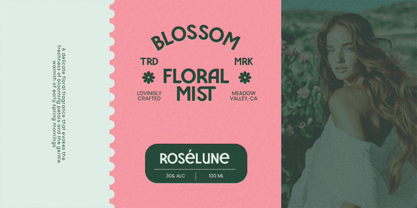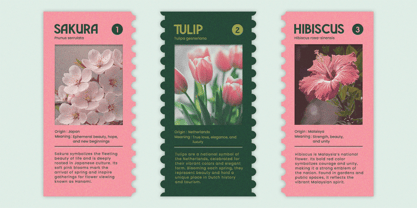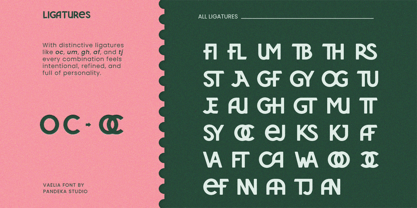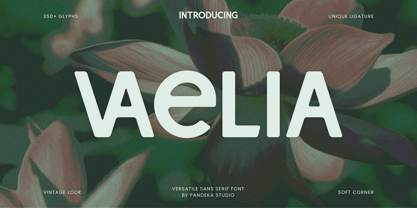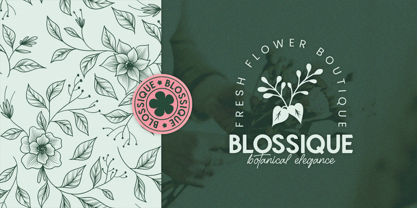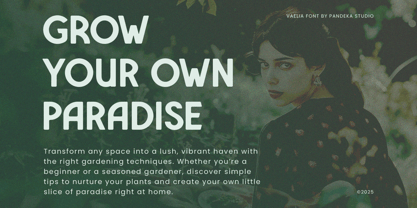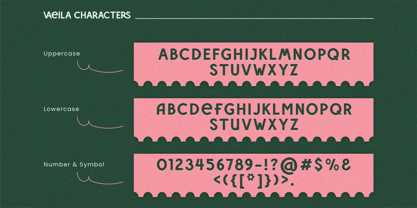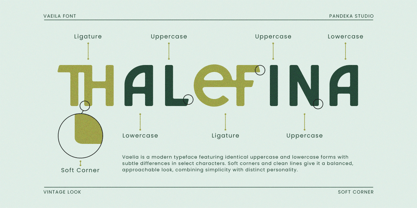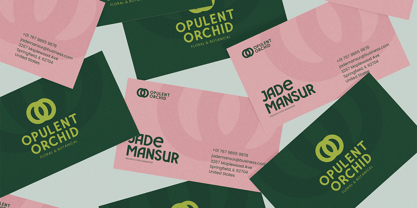
Vaelia
by Pandeka Studio
The Vaelia Font Family was designed by Sagara Nararya and published by Pandeka Studio. Vaelia contains 1 styles. More about this family
Vaelia is a bold, nature-inspired display font with a modern twist. Designed for creatives who want to infuse elegance, organic charm, and high visual impact into their branding, packaging, and editorial work. With rounded letterforms, stylish alternates, and a handcrafted touch, Vaelia brings botanical beauty and standout personality to any design. Ideal for fashion brands, eco-product packaging, Instagram content, and lifestyle campaigns.
• 1 Style: Regular
• Full Character Set: Uppercase, lowercase, numbers, symbols, and punctuation
• 25+ Ligatures and alternates